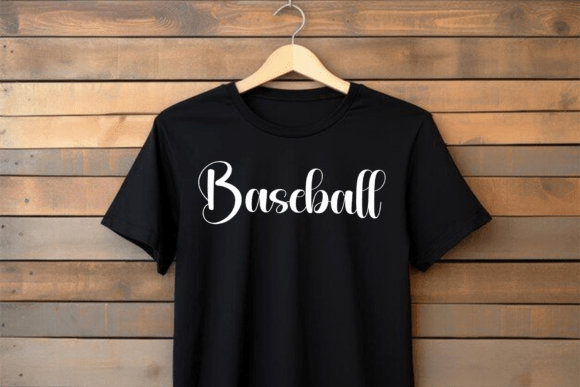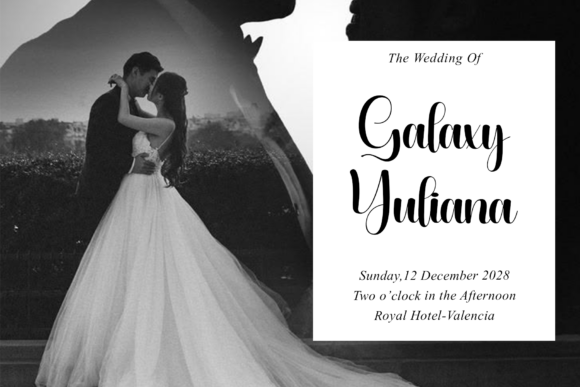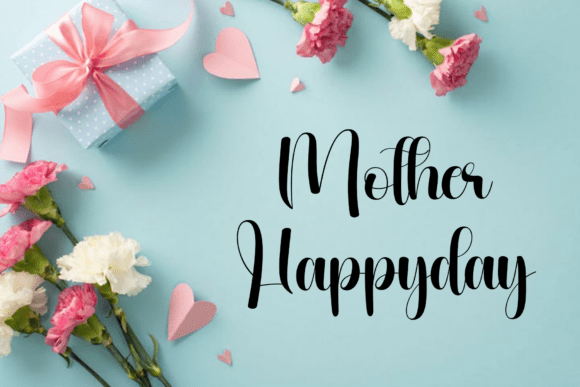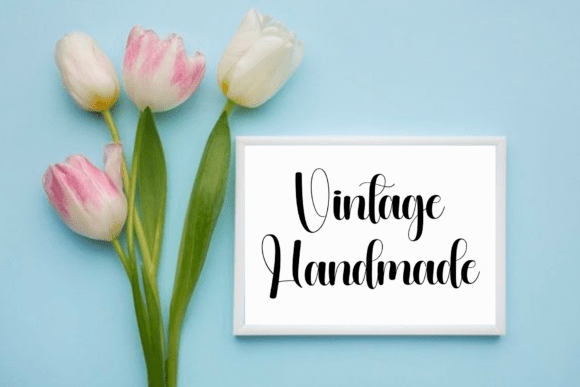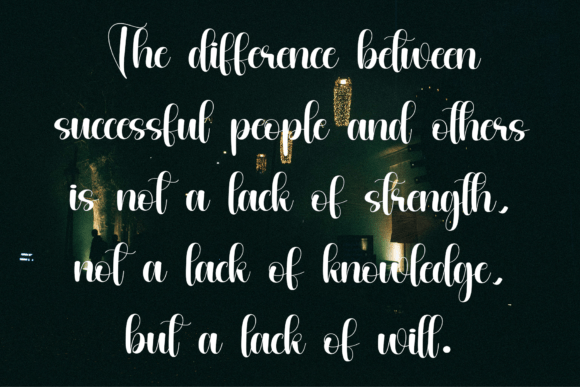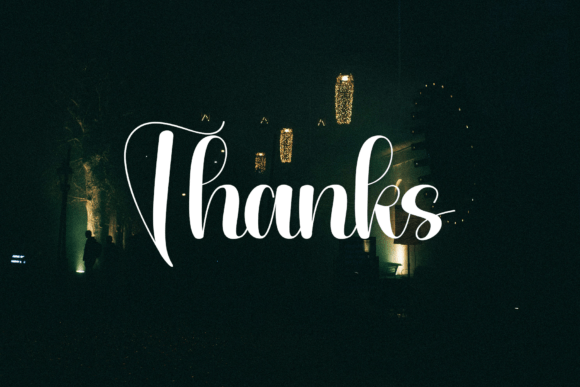
Introducing Creative Lighting Font: Elevate Your Designs with Elegance and Sophistication
In the world of typography, a well-crafted font can make all the difference in elevating your designs to the next level. If you’re a designer or crafter looking for a typeface that exudes luxury, sophistication, and modernity, look no further than Creative Lighting Font. This elegant and fluid handwritten script font is specifically designed to capture the essence of high-end branding, making it perfect for luxury wedding stationery, intimate event branding, high-end editorial signatures, and sophisticated lifestyle photography overlays.
The Characteristics of Creative Lighting Font
Creative Lighting Font boasts a range of characteristics that set it apart from other typefaces. Its fluid, handwritten script style gives it a sense of elegance and sophistication, while its modern and refined aesthetic ensures it remains fresh and contemporary. The font’s letters are carefully crafted to flow seamlessly into one another, creating a beautiful, connected script that is both visually appealing and highly legible.
Perfect for Luxury Wedding Stationery and Event Branding
Luxury wedding stationery and event branding require a typeface that is both romantic and sophisticated. Creative Lighting Font fits the bill perfectly, with its elegant script style and refined aesthetic. Whether you’re designing wedding invitations, save-the-date cards, or event branding materials, this font is sure to impress. Its luxurious feel and modern style make it an ideal choice for couples looking to create a sophisticated and high-end look for their special day.
Elevate Your Editorial Signatures with Creative Lighting Font
High-end editorial signatures require a typeface that is both stylish and sophisticated. Creative Lighting Font is the perfect choice for adding a touch of elegance to your editorial designs. Its refined aesthetic and modern style make it an ideal choice for designers looking to create a luxurious and high-end look for their editorial signatures. Whether you’re working on a fashion magazine, lifestyle publication, or high-end brand campaign, this font is sure to elevate your designs.
Adding a Touch of Sophistication to Lifestyle Photography Overlays
Lifestyle photography overlays require a typeface that is both stylish and sophisticated. Creative Lighting Font is the perfect choice for adding a touch of elegance to your lifestyle photography overlays. Its refined aesthetic and modern style make it an ideal choice for designers looking to create a luxurious and high-end look for their photography overlays. Whether you’re working on a fashion campaign, lifestyle brand, or social media project, this font is sure to elevate your designs.
Why Choose Creative Lighting Font?
So why choose Creative Lighting Font over other typefaces? Here are just a few reasons why this font stands out:
- Elegant and sophisticated: Creative Lighting Font boasts a refined aesthetic and modern style that is both elegant and sophisticated.
- Fluid and connected: The font’s fluid, handwritten script style gives it a beautiful, connected feel that is both visually appealing and highly legible.
- Versatile: Creative Lighting Font is perfect for a range of design applications, from luxury wedding stationery and event branding to high-end editorial signatures and lifestyle photography overlays.
- Modern and refined: The font’s modern style ensures it remains fresh and contemporary, while its refined aesthetic gives it a luxurious feel.
In conclusion, Creative Lighting Font is a stunning and sophisticated typeface that is perfect for designers and crafters looking to elevate their designs. Its elegant and fluid handwritten script style, combined with its modern and refined aesthetic, make it an ideal choice for luxury wedding stationery, intimate event branding, high-end editorial signatures, and sophisticated lifestyle photography overlays. With its versatility, legibility, and luxurious feel, Creative Lighting Font is sure to become a go-to typeface for designers looking to create high-end designs.